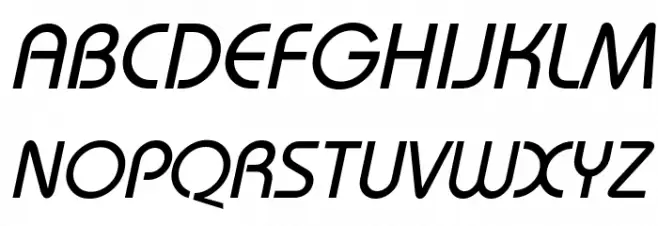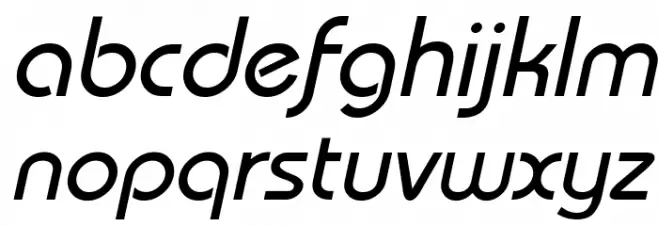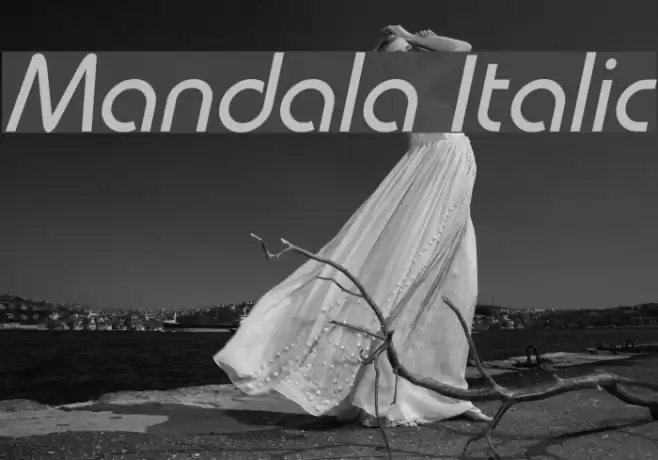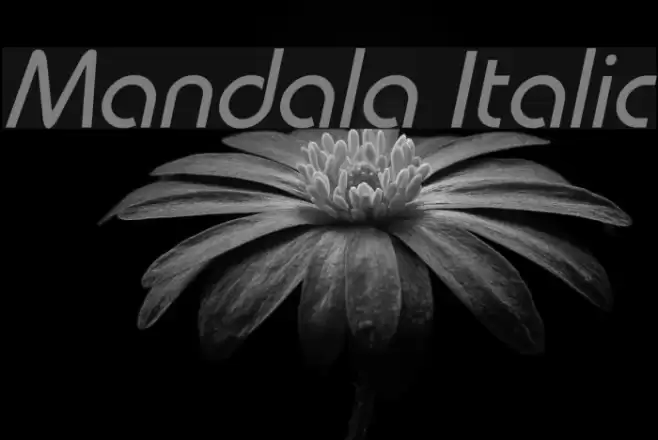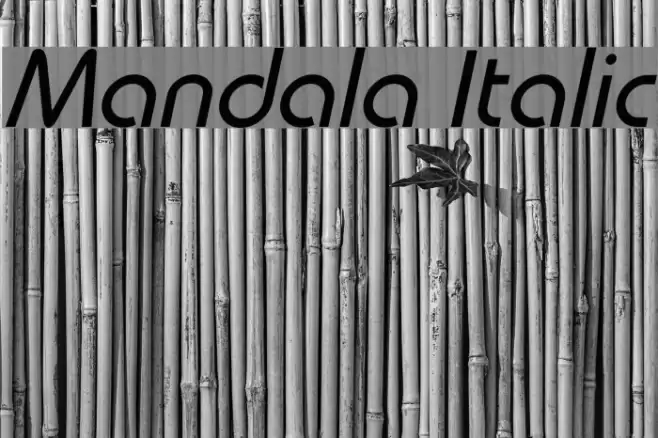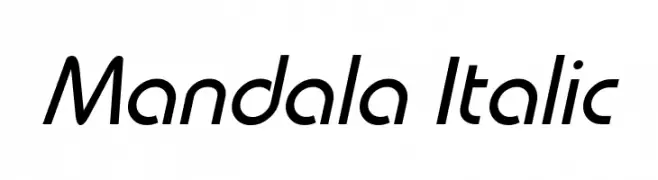
Mandala Italic
This font features a sleek and modern italic style with smooth curves and a slight forward slant, giving it a dynamic and energetic appearance. The characters are well-proportioned, with a consistent stroke width that maintains readability while adding a touch of elegance. The uppercase letters are bold and commanding, while the lowercase letters offer a softer, more approachable feel. The numerals are clear and distinct, making them suitable for various applications. Special characters are thoughtfully designed to complement the overall aesthetic, ensuring versatility across different contexts.
A sleek, modern italic font with smooth curves and dynamic style.
- Proposed Projects: Ideal for branding, advertising, and editorial design projects that require a modern and energetic touch.
- Use Case: Headlines, Logos, Branding